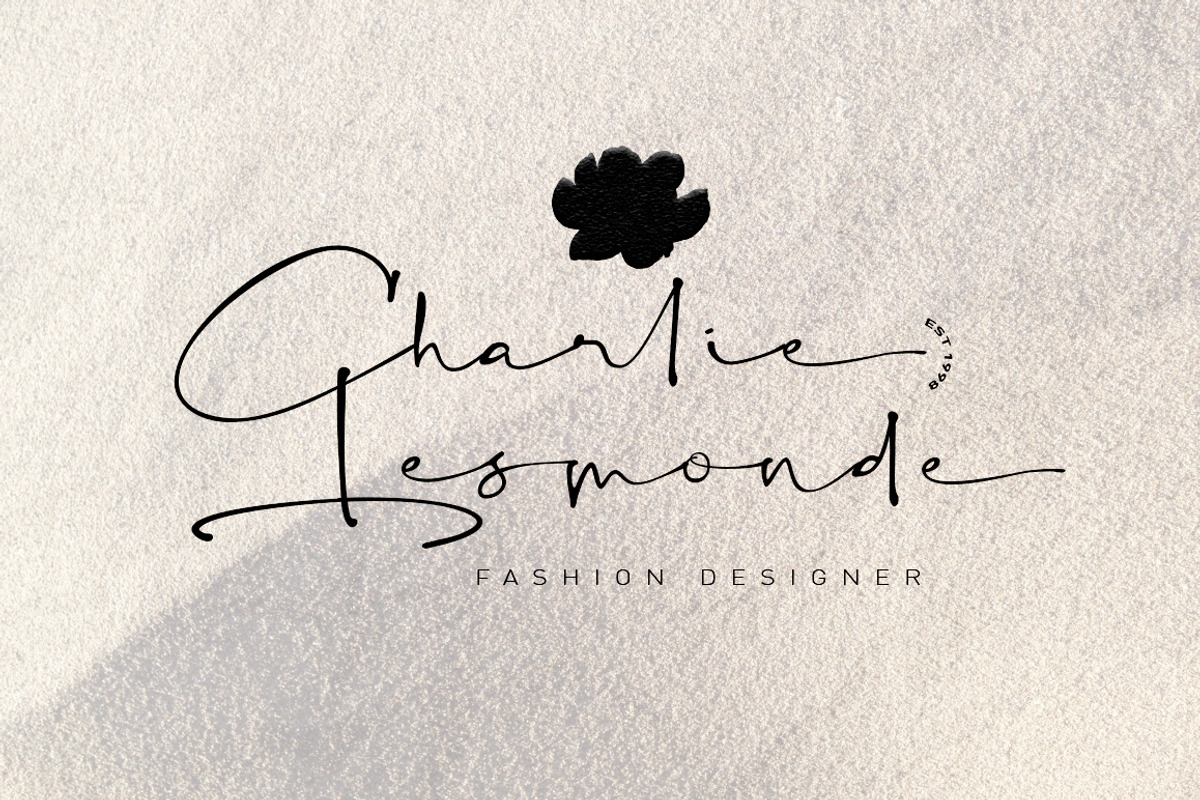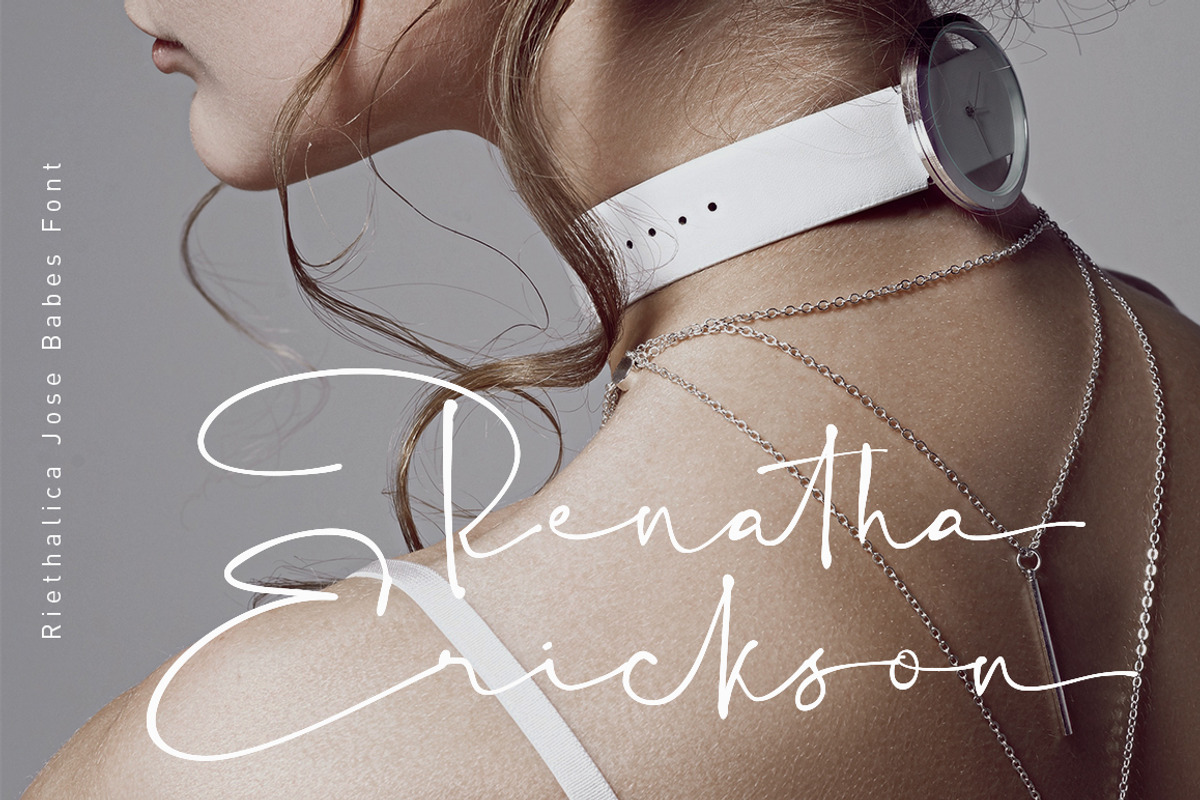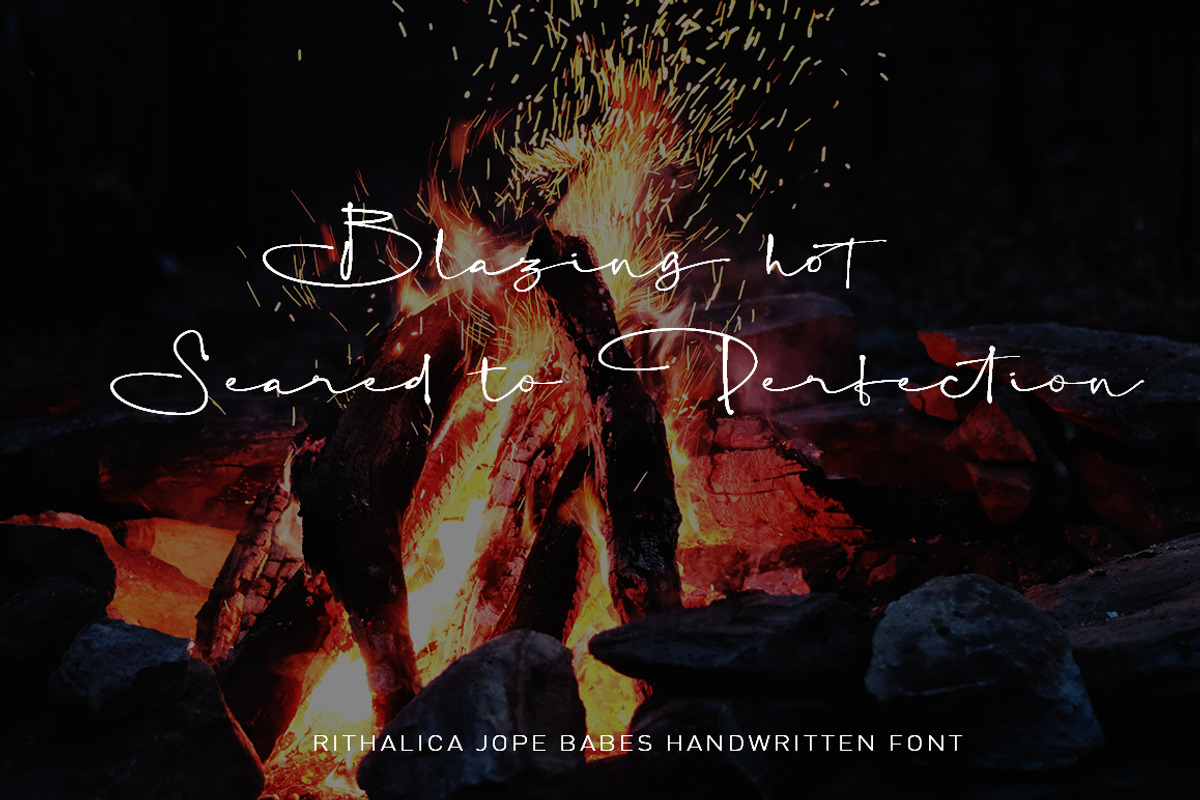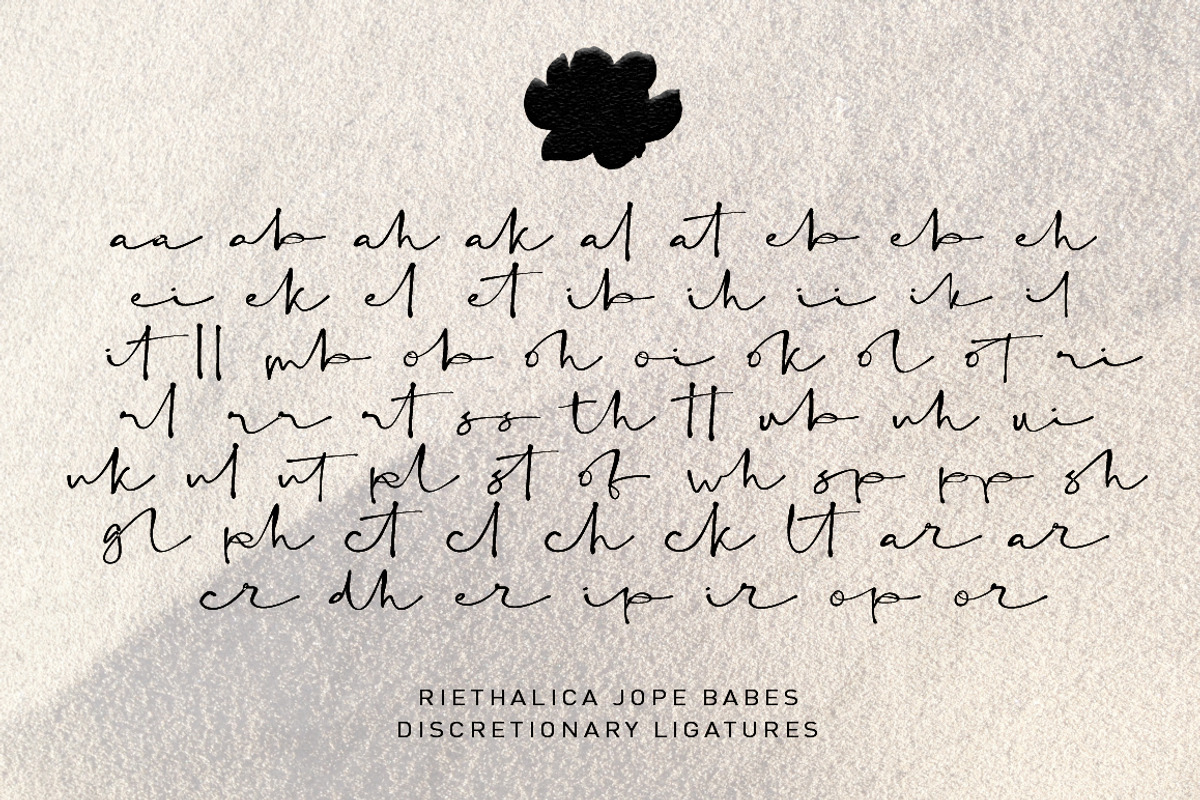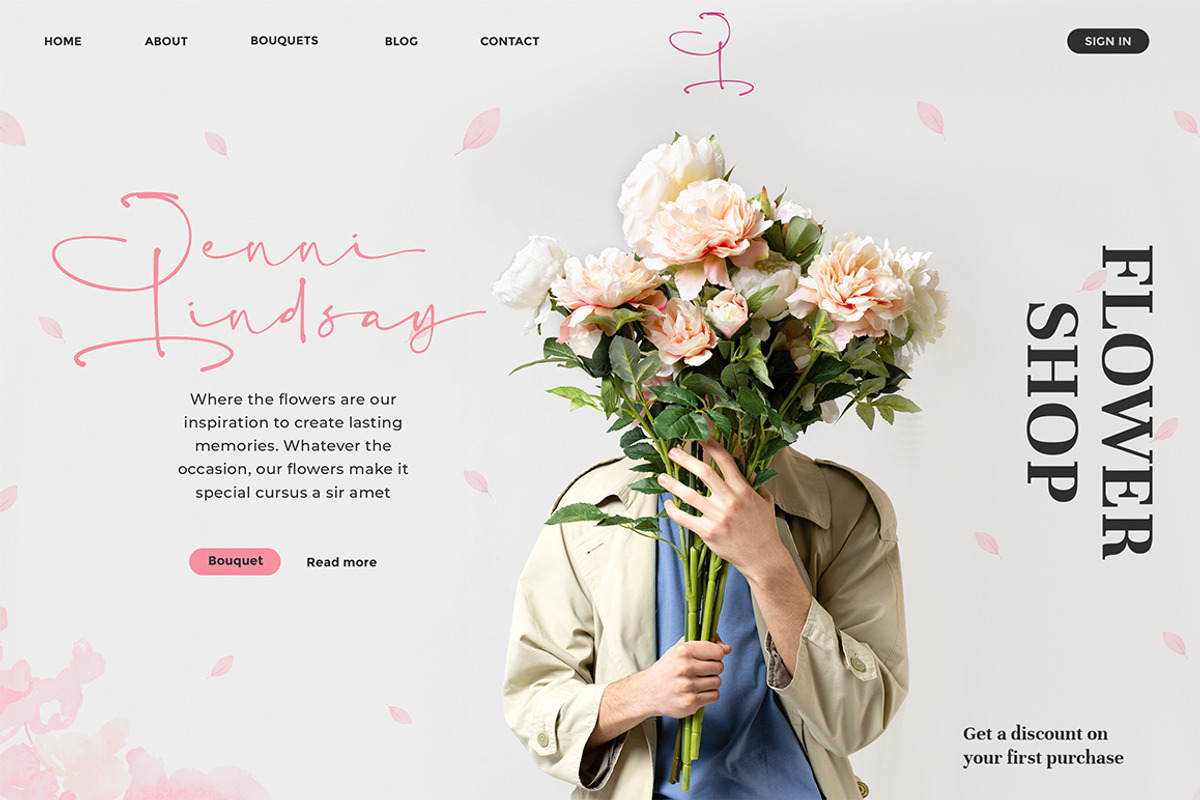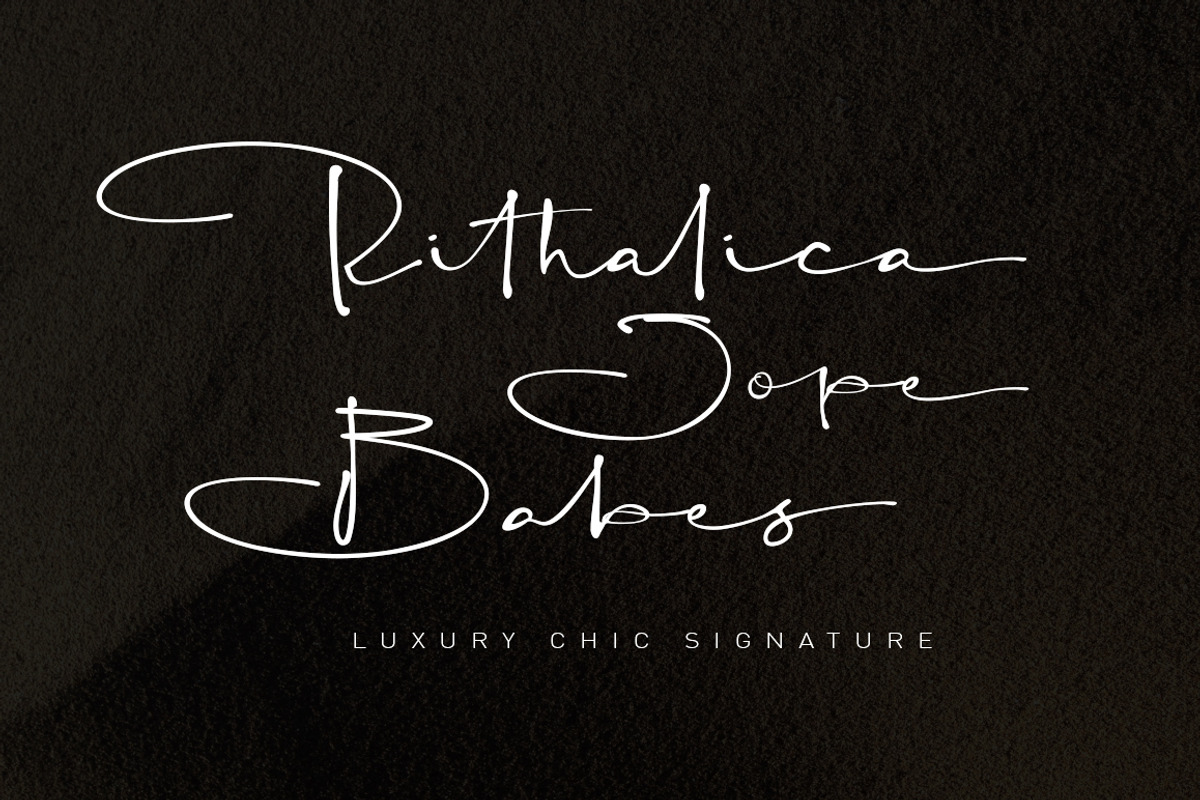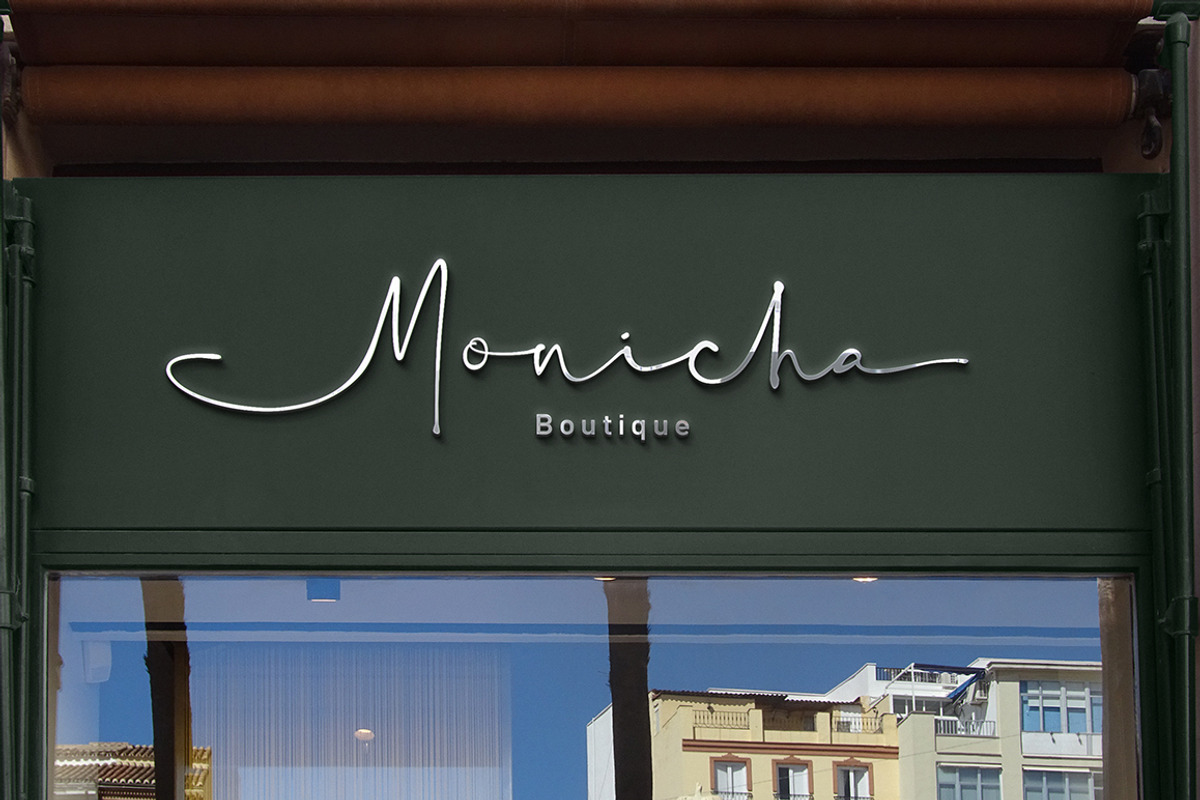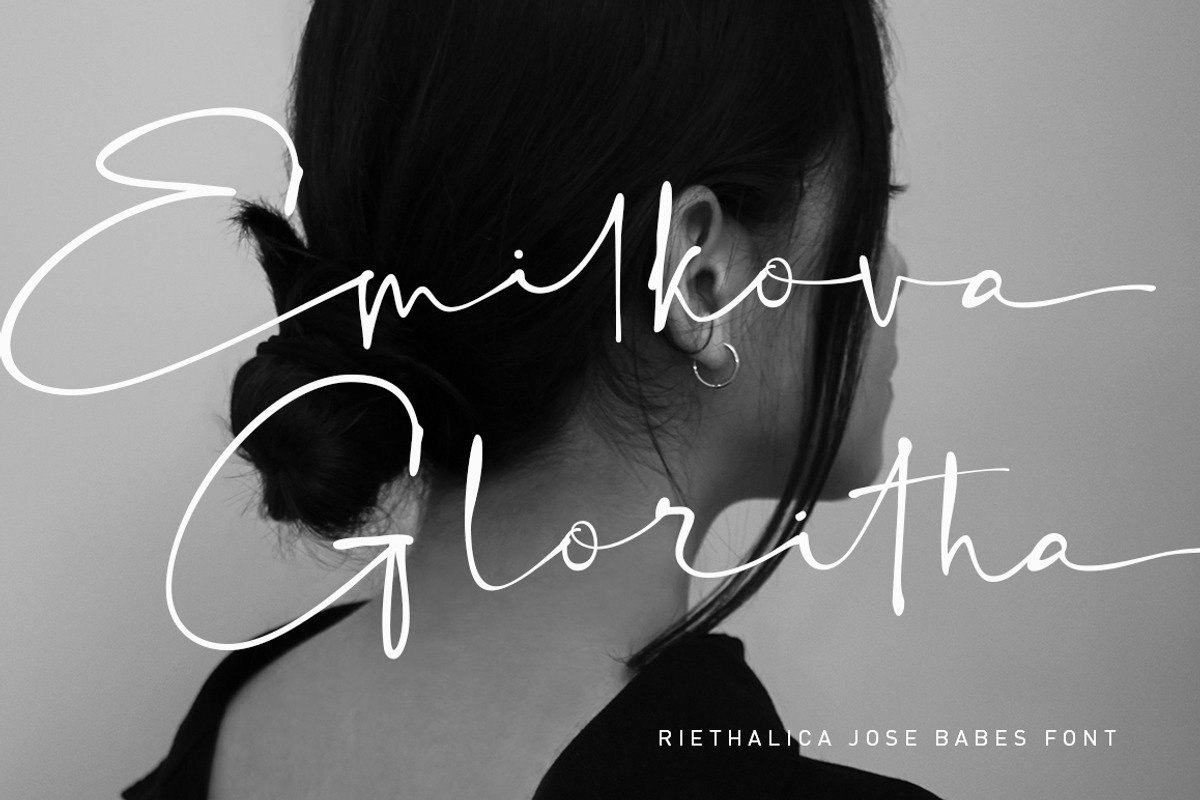
Rithalica Jope Babes
Presenting Rithalica Jope Babes luxury chic handwritten font
Handwriting that is light and made as natural as possible to give the impression of pure digitalized handwriting, so that in its use it can give the true beauty of handwriting. And suitable for use in various media such as advertisements, web templates, invitations, social media templates, posters, weddings, and many more
Rithalica Jope Babes luxury chic handwritten font include ligatures, capital letters and alternate letters. You need a program that supports OpenType features like Adobe Illustrator, Adobe Photoshop CC, Adobe Indesign and Corel Draw. and you can also access alternative flying machines via Font Book (Mac users) or Windows Character Map (Windows users).